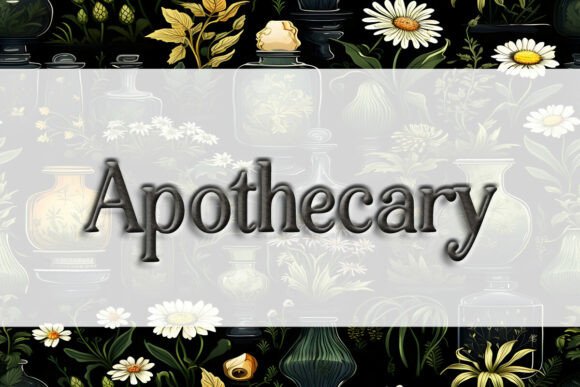
Unlocking Creativity with Apothecary Display Font
I’ll never forget the moment I stumbled upon the perfect font for a client’s branding project. It was as if the stars aligned, and my design woes disappeared. I was working on a logo design for a quaint, vintage-inspired apothecary shop, and I needed a font that would capture the essence of their unique brand. That’s when I discovered Apothecary Display Font – a game-changer in the world of typography.
A Personal Review of Apothecary Display Font
As a designer, I’m always on the lookout for fonts that can elevate my creative projects. Apothecary Display Font has become a staple in my font library, and here’s why:
• ✨ Unique and distinctive character that sets it apart from other fonts
• ✅ Highly versatile and adaptable to various design mediums
• 💡 Excellent for headlines, titles, and logo designs
• 📚 Supports OpenType features, glyphs, and stylistic alternates
A Few Quirks to Consider
While Apothecary Display Font is an excellent choice, it’s not without its limitations:
• 🤔 May not be suitable for body text due to its display-focused design
• ⚠️ Some characters may require manual kerning for optimal spacing
The Story Behind Apothecary Display Font
Apothecary Display Font was inspired by the traditional apothecaries of the past. The font’s designer aimed to capture the essence of these historic shops, which were known for their unique blend of science, art, and mysticism. The result is a font that exudes sophistication, elegance, and a touch of mystery.
What is Apothecary Display Font best suited for? Apothecary Display Font is ideal for headlines, titles, logo designs, and any project that requires a unique and attention-grabbing font.
Can I use Apothecary Display Font for body text? While possible, Apothecary Display Font is not recommended for body text due to its display-focused design. It’s best used for titles and headings.
Does Apothecary Display Font support OpenType features? Yes, Apothecary Display Font supports OpenType features, glyphs, and stylistic alternates, making it a versatile font for various design applications.